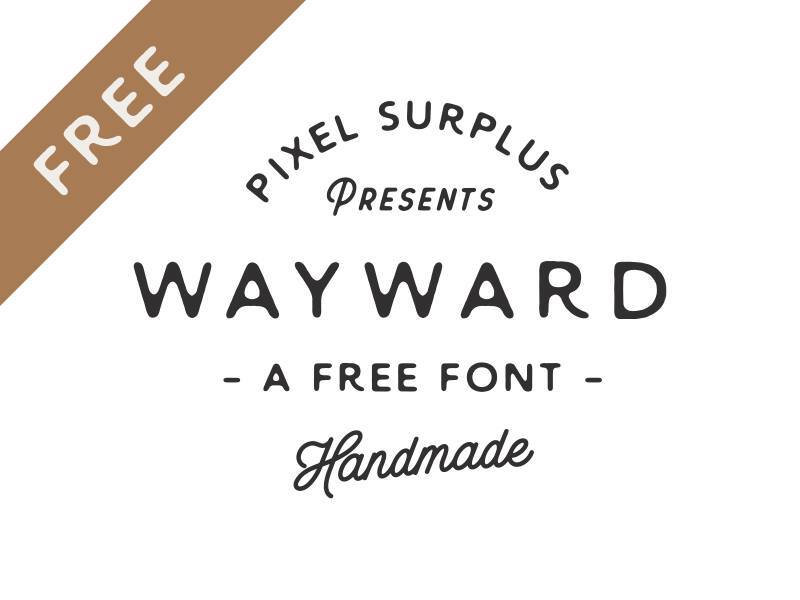
WAYWARD Free Font
Wayward Sans is perfectly best for any of your branding project. It represents the artistic and appealing create in popular hand lettering parts and sets very well with script lettering. Wayward is perfect for taking a custom-made hand lettered to make your project outstanding.